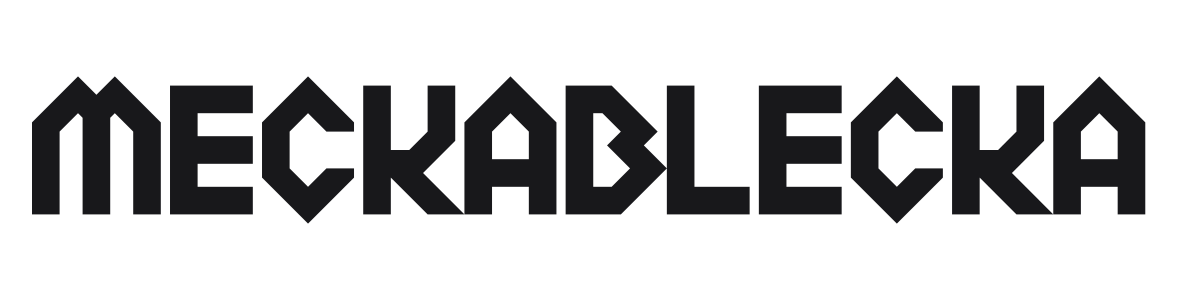
Meckablecka
Meckablecka is a heavy angular display font built almost entirely from straight lines and sharp geometric cuts. Every character feels like it was chiseled rather than drawn, with pointed interior angles that echo classic heavy metal logo lettering. It commands attention at large sizes and carries a raw, unapologetic energy.